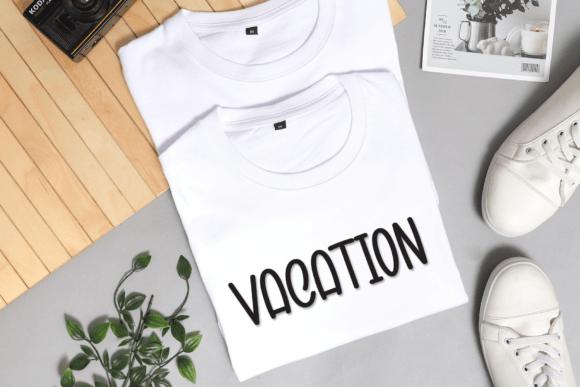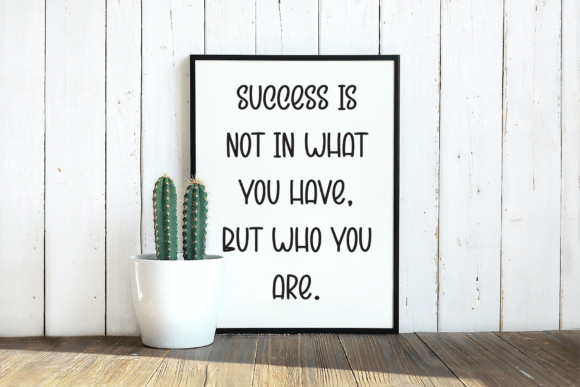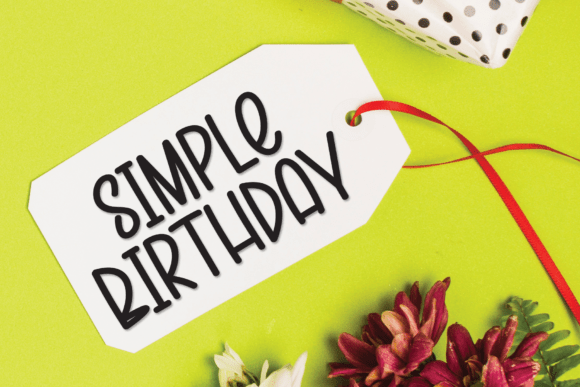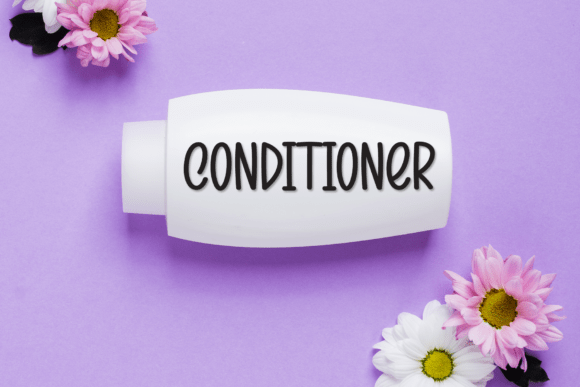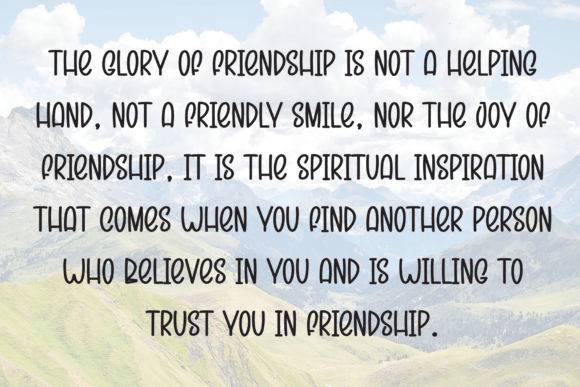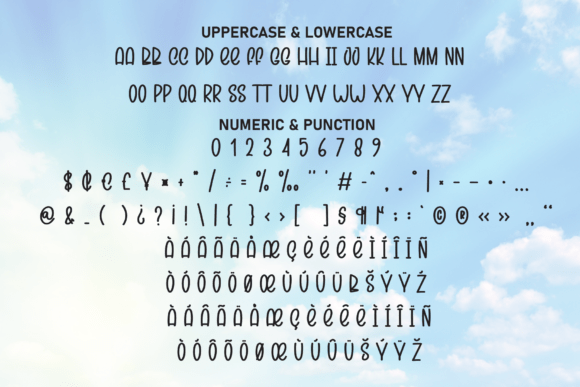
Bringing Whimsy to Your Designs
Have you ever sat down with a blank sheet of paper and a blank mind, waiting for inspiration to strike? The blank page can be intimidating, but sometimes all it takes is a single spark to set your creativity ablaze. For designers, finding that perfect spark can be a game-changer.
Enter the Bright Sunday Font, a charming handwritten display font that’s bursting with personality. This delightful font is designed to bring a playful touch to your designs, making it a perfect fit for wedding invitations, cards, and any other project that needs a dash of whimsy. With its cute and fun characteristics, the Bright Sunday Font is a versatile choice that can elevate any creative project and bring out the joyful spirit within.
Whether you’re a seasoned designer or just starting out, the Bright Sunday Font is a valuable addition to your toolkit. Its unique charm and playful vibe make it an excellent choice for anyone looking to add a touch of elegance and whimsy to their designs.
Bright Sunday Font Key Features
- Font Family: Bright Sunday, a modern sans-serif font designed for digital use.
- Unique Characteristics: Bright Sunday features a unique blend of geometric and rounded shapes, creating a friendly and approachable feel. The font also includes a wide range of glyphs, including ligatures and ornaments, to enhance its versatility.
Bright Sunday Font Review
I recently had the chance to work with the Bright Sunday Font, and I must say it’s a unique and refreshing addition to my design library. ✨ The font’s playful and optimistic vibe is perfect for branding projects that require a cheerful and approachable tone. ✨ The font’s bold lines and rounded edges give it a friendly feel, making it suitable for use in logos, headings, and body text.
Here are some specific strengths I’ve noticed:
- ✨ The font’s legibility is excellent, even at small font sizes.
- ✨ The font’s versatility makes it suitable for a wide range of design applications, from digital products to print materials.
- ✨ The font’s OpenType features allow for advanced typographic control and customization.
However, I do have some concerns about the font’s limitations:
- ⚠️ The font’s lack of italic or bold-italic variants may limit its use in certain design situations.
- ⚠️ The font’s rounded edges may not be suitable for use in designs that require a more serious or formal tone.
Overall, I think the Bright Sunday Font is a solid addition to any designer’s library. While it may not be the perfect choice for every project, it’s certainly a great option for those looking to add a playful and optimistic touch to their designs.
Bright Sunday Font: A Practical Application Guide
Tips for Getting the Most Out of Bright Sunday Font
Experiment with different font sizes, colors, and combinations to achieve the desired look. Use the font in conjunction with other design elements, such as images and graphics, to create visually appealing designs.
The Bright Sunday font is ideal for use in creative and playful designs, such as:
- Children’s books and educational materials
- Event and party invitations
- Marketing and advertising campaigns